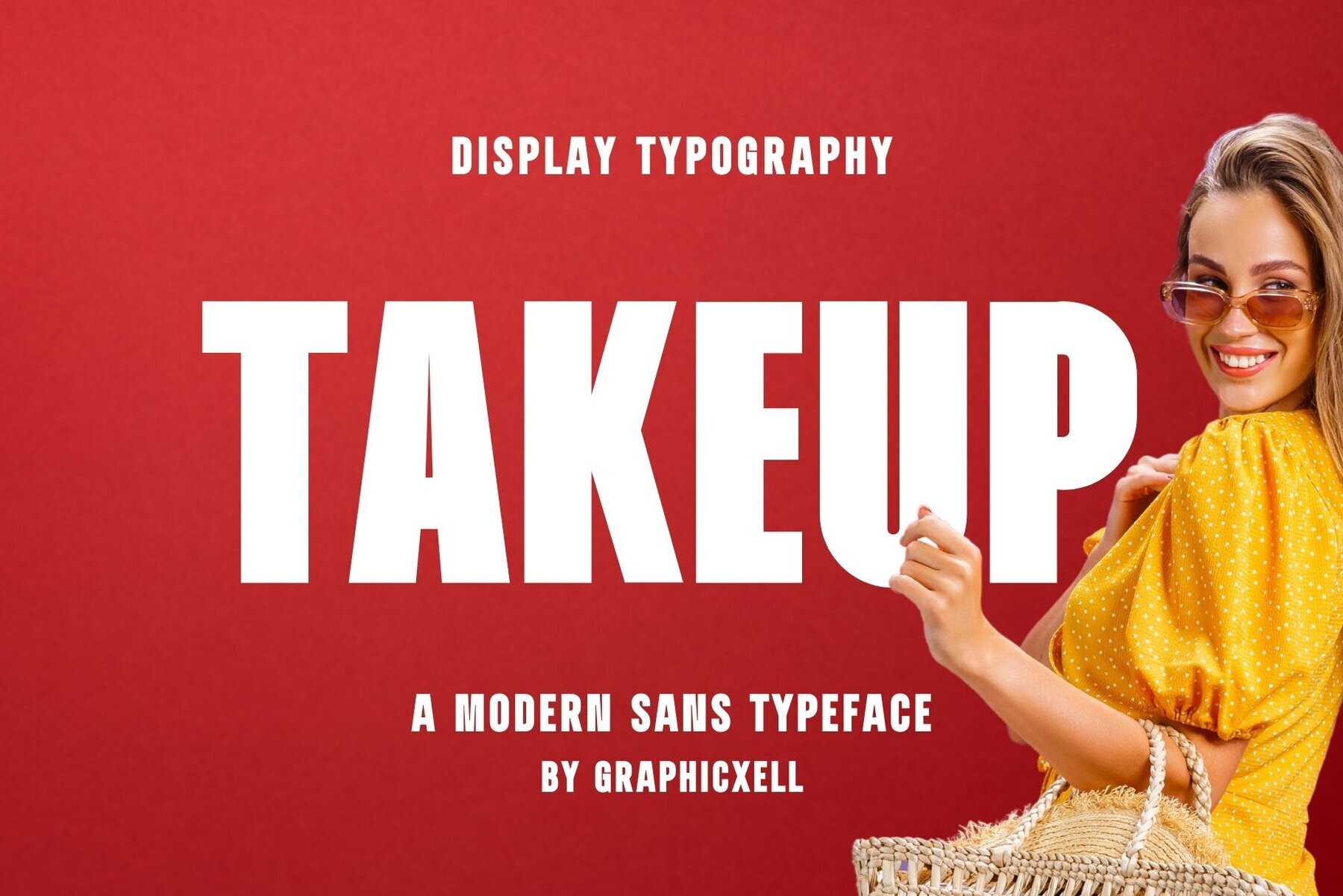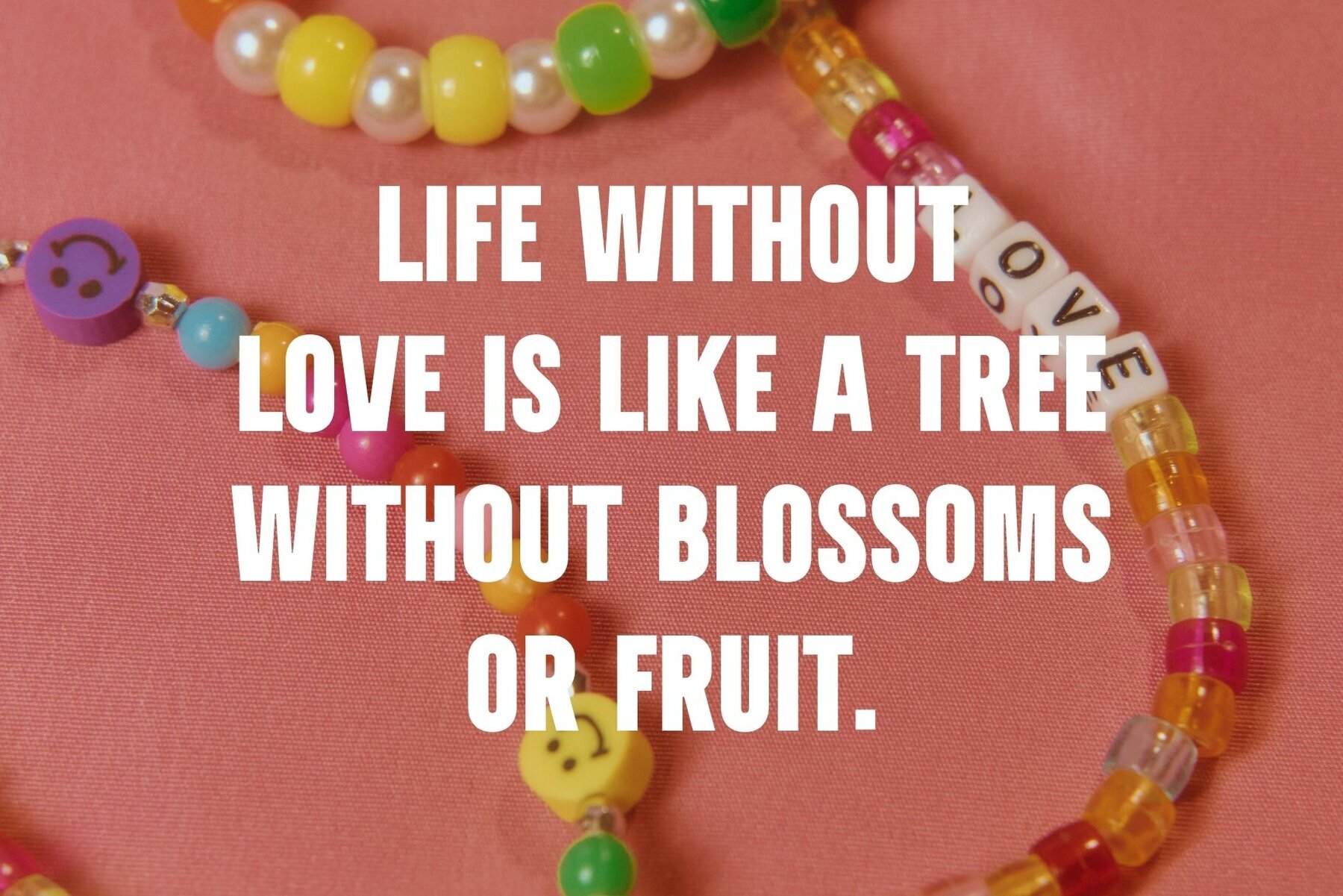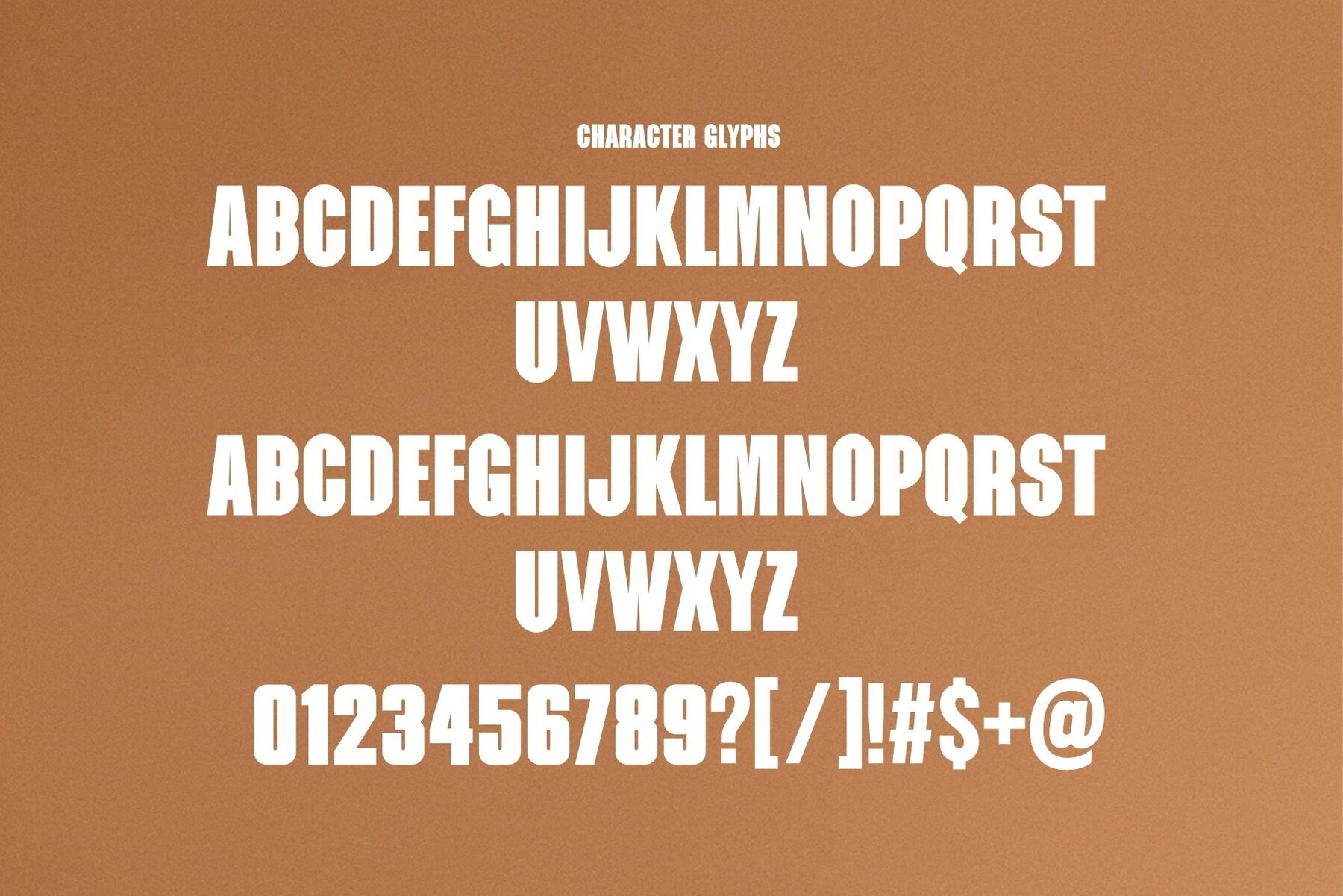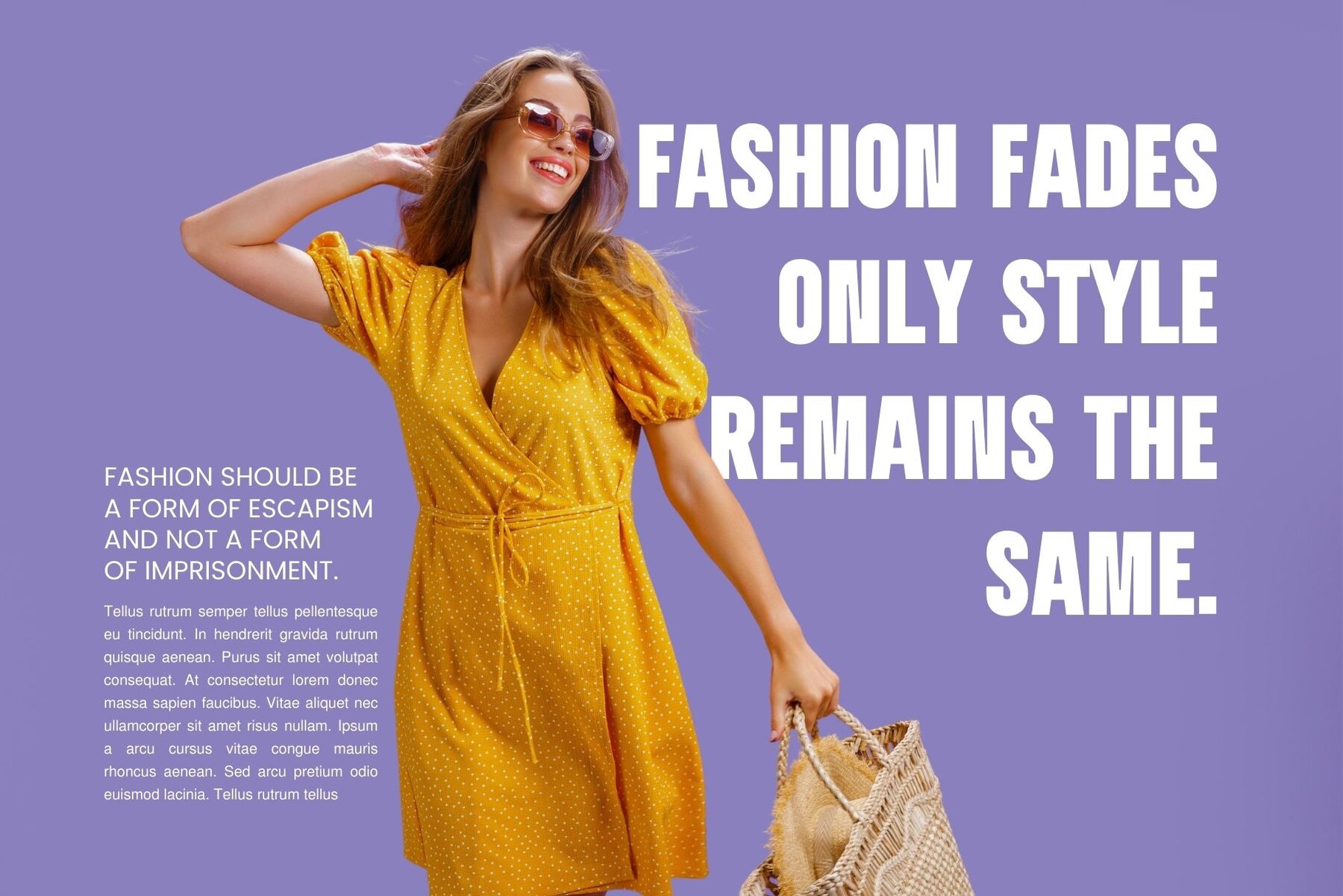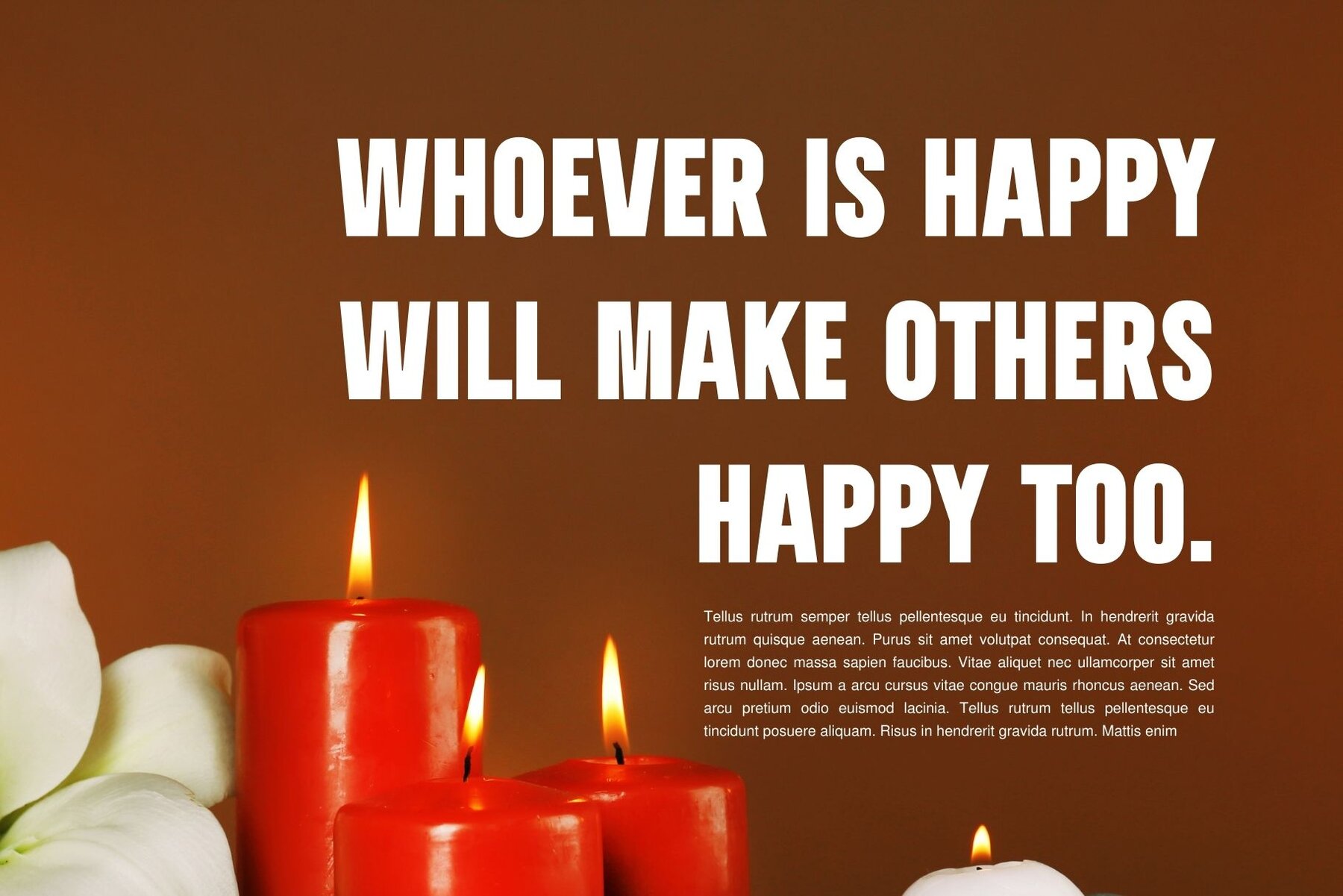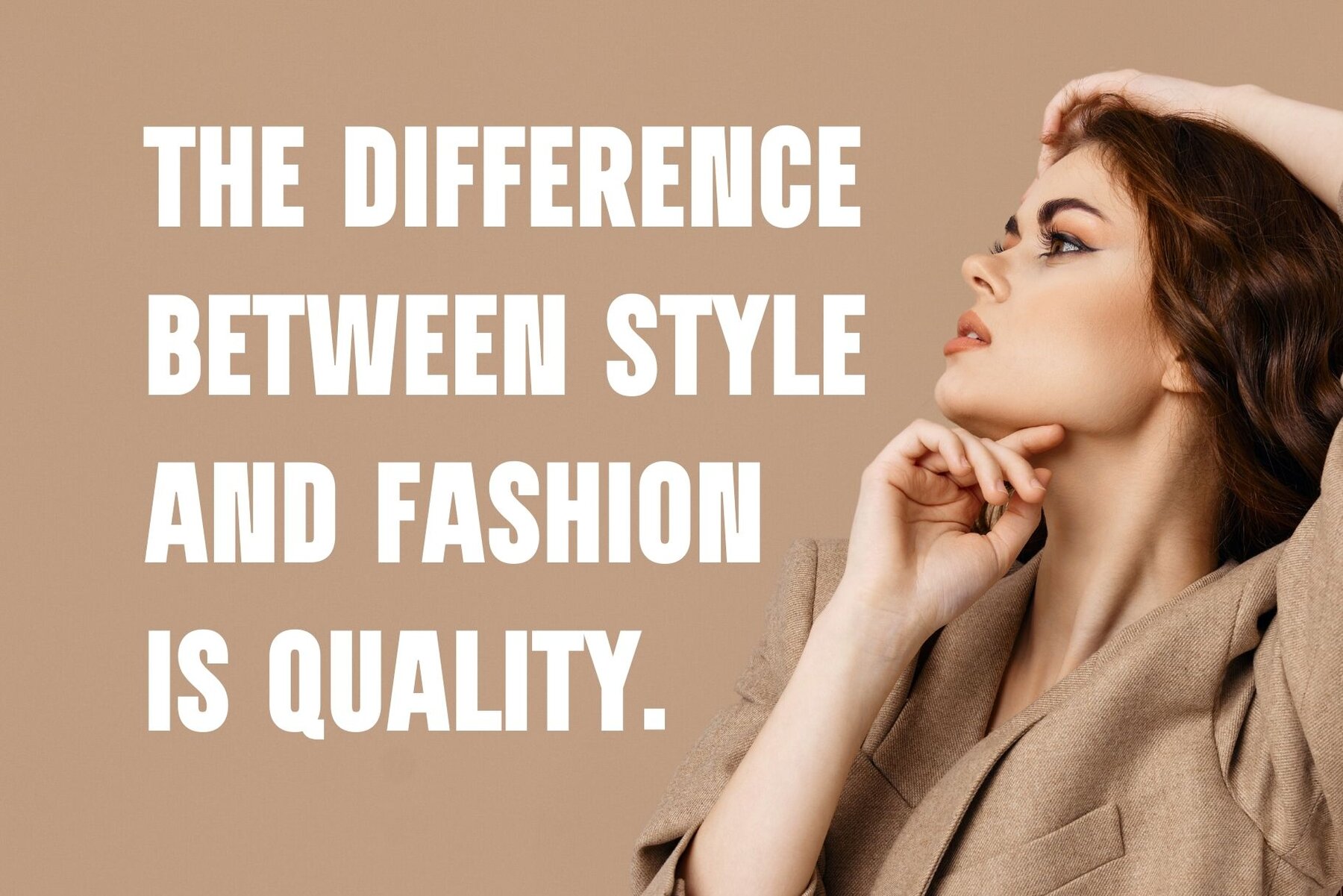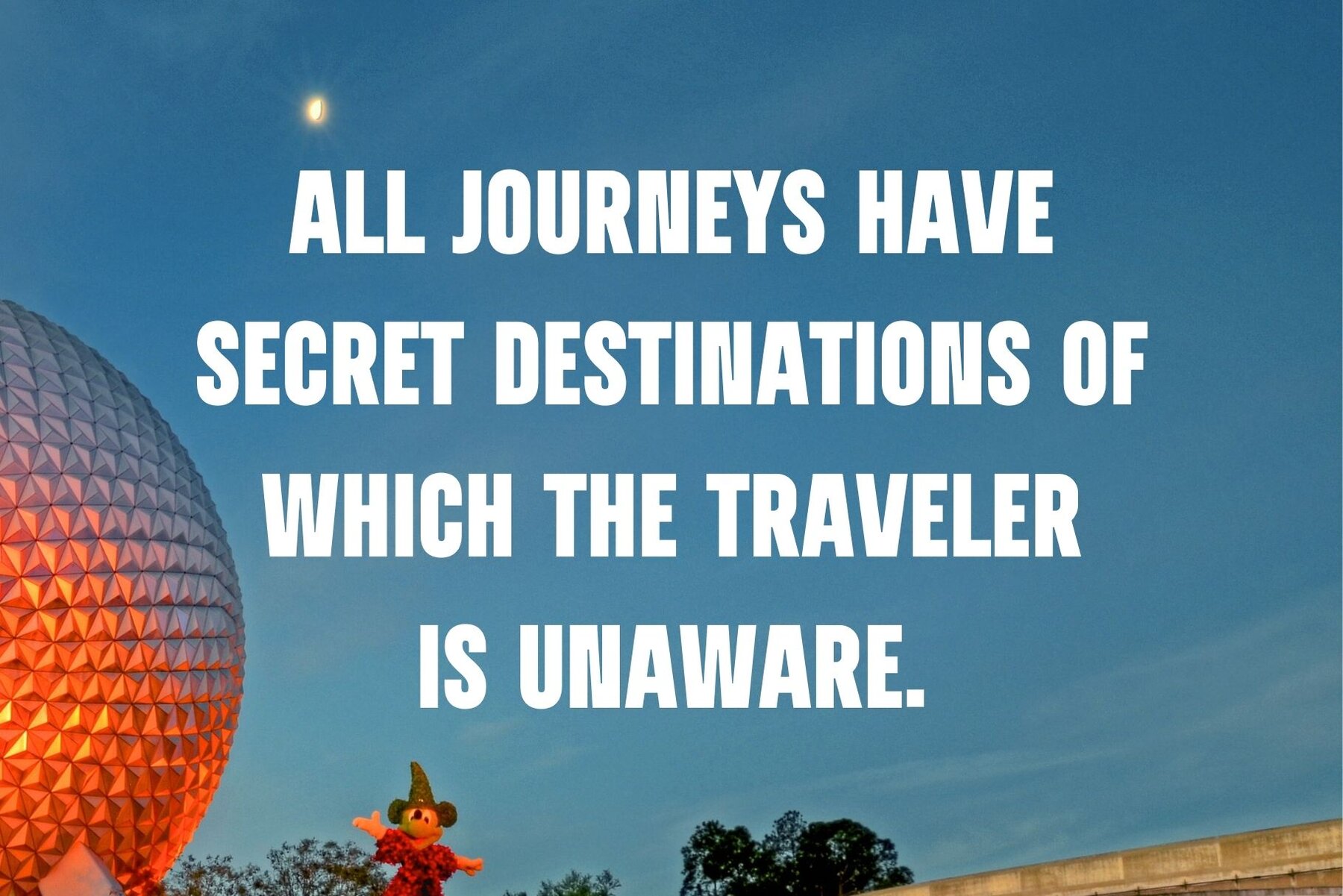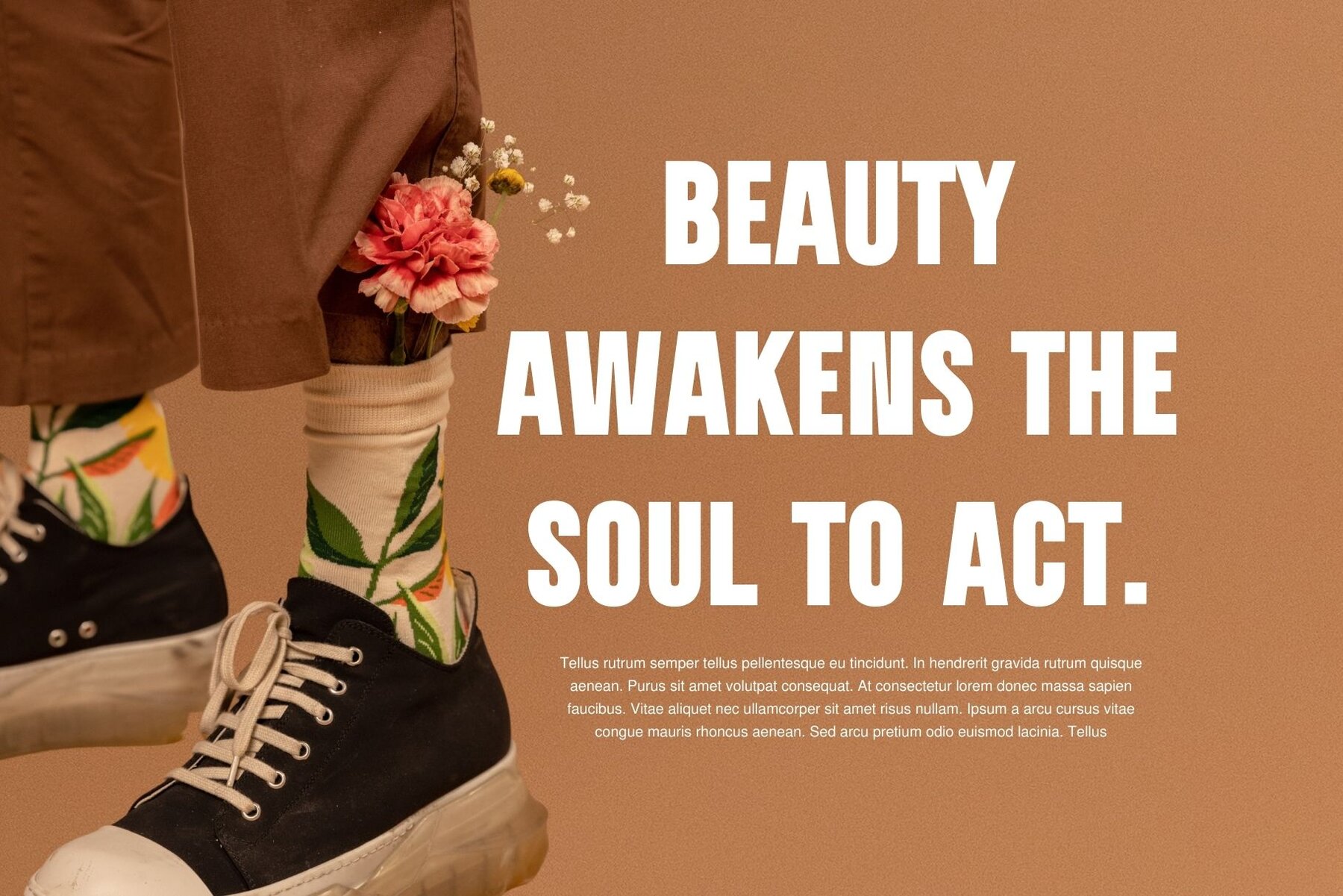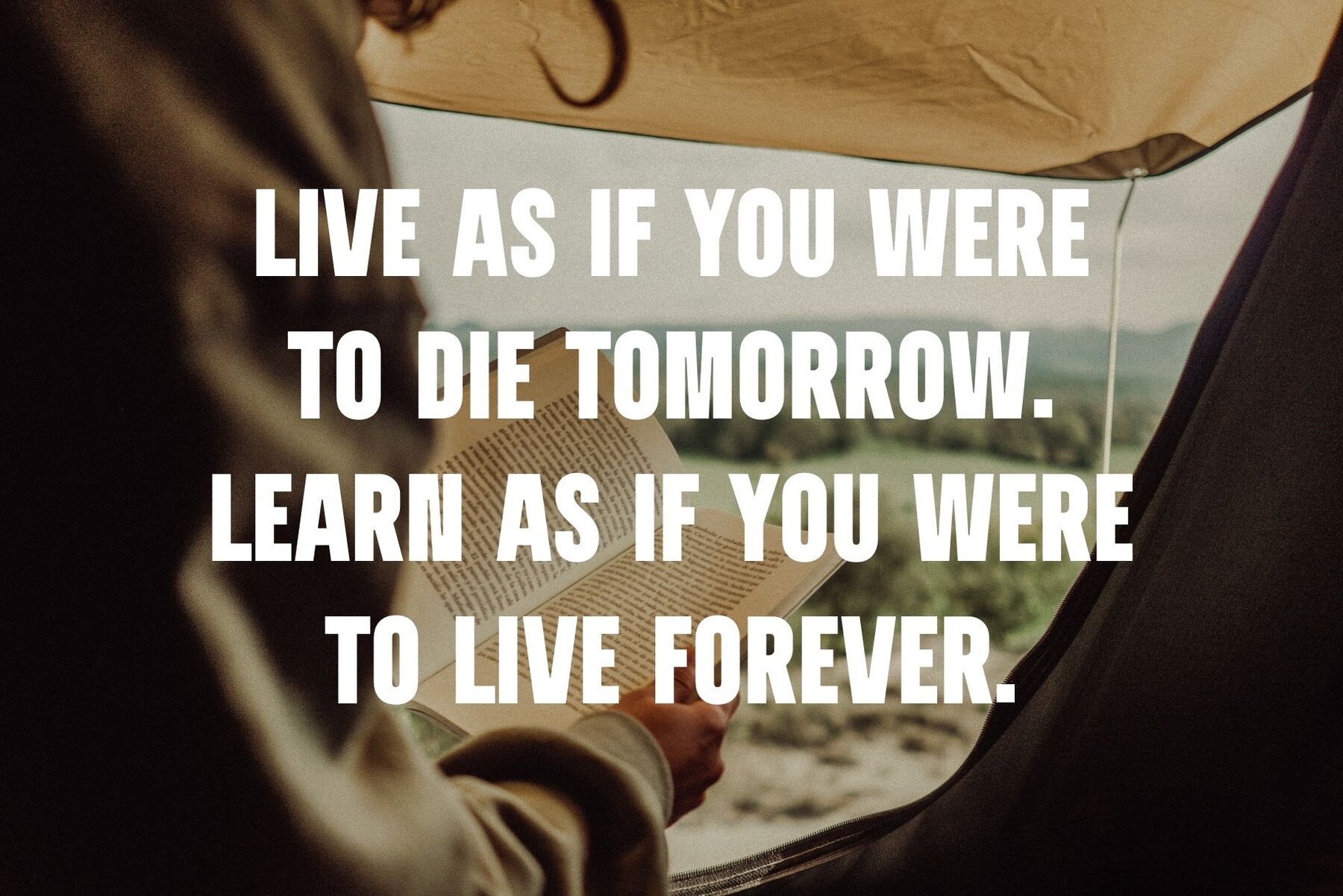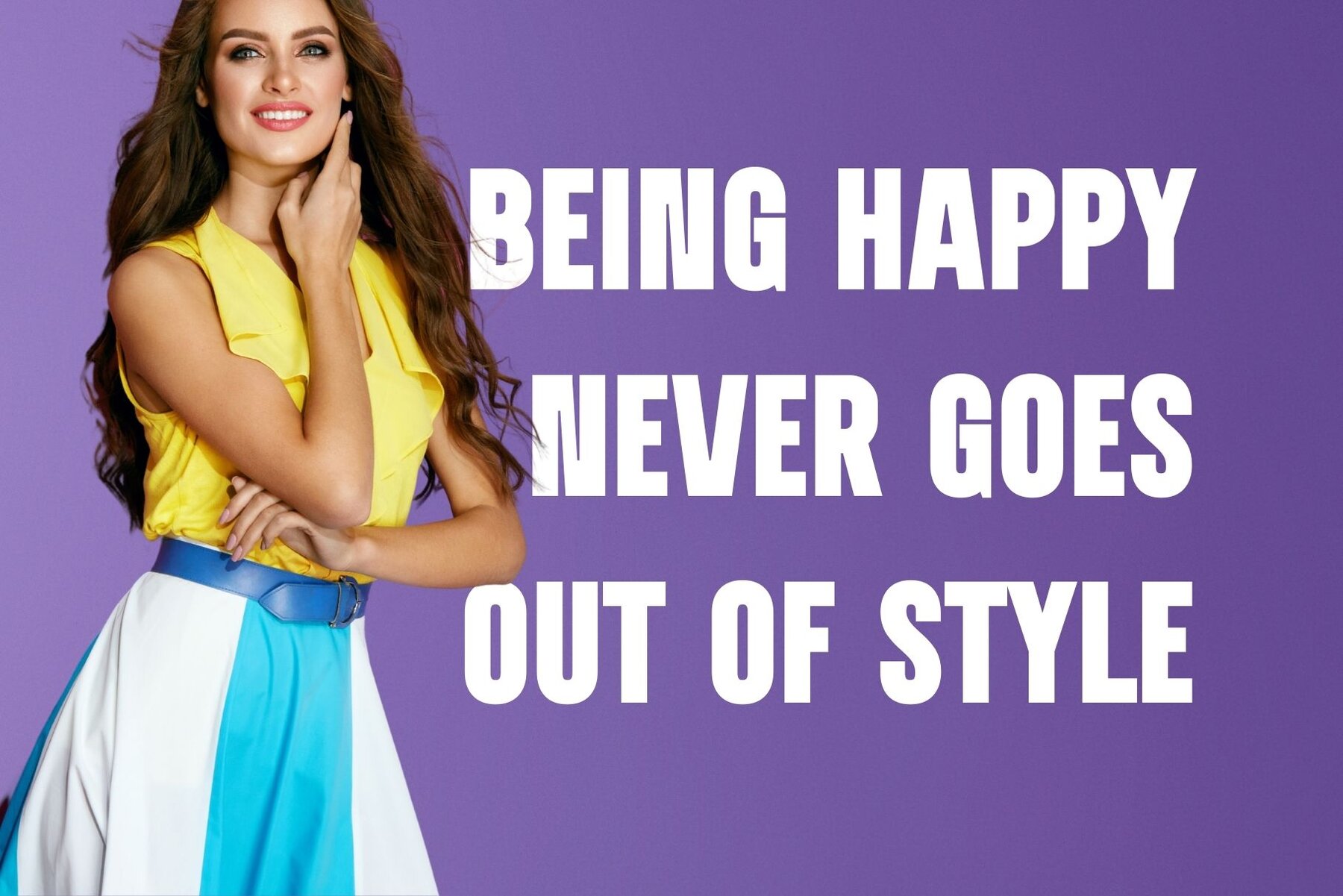
Takeup Font
Takeup Regular
Takeup by Graphicxell draws inspiration from renowned minimalist logos, making it an ideal choice for a wide range of design applications. This font is perfect for crafting templates, brochures, videos, advertisements, branding materials, logos, invitations, elegant layouts, and beauty projects.Takeup: A Minimalist Typeface for Diverse Design Needs